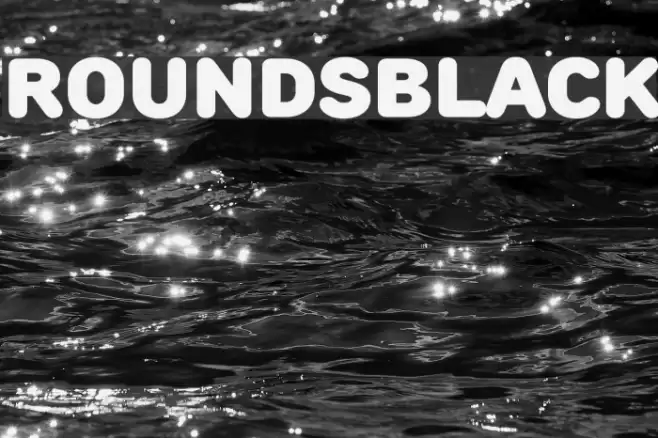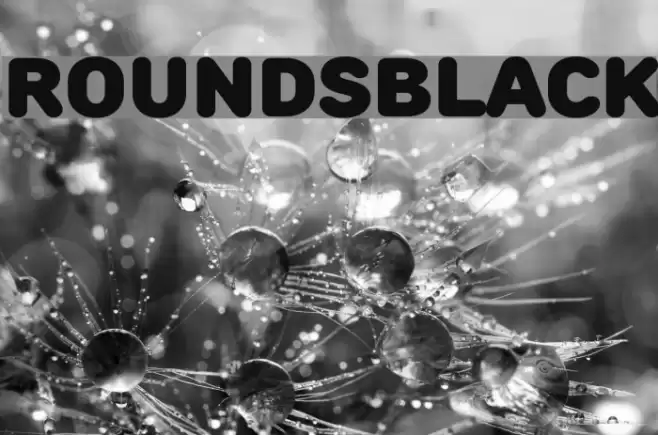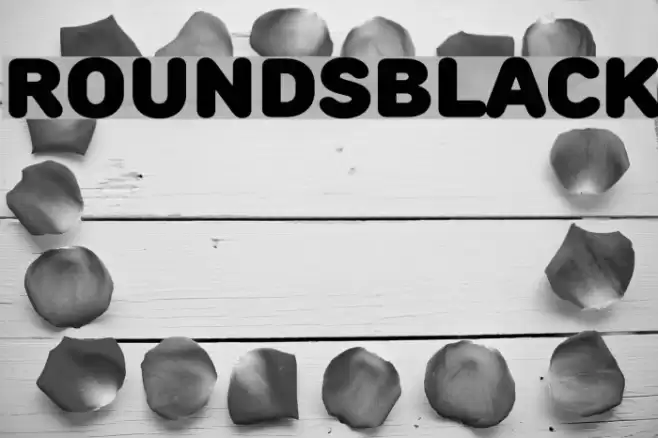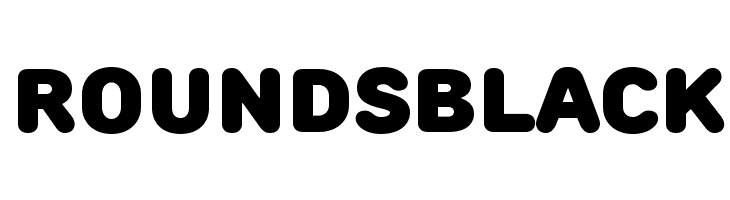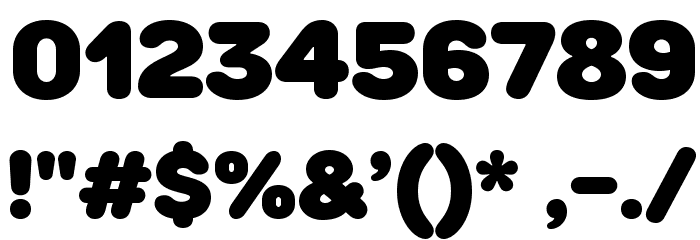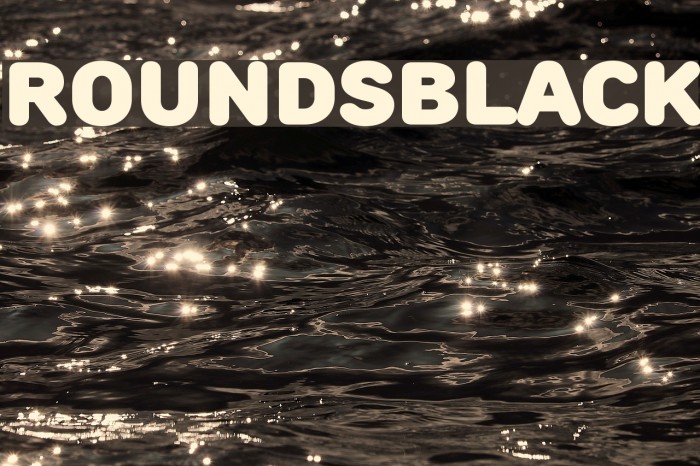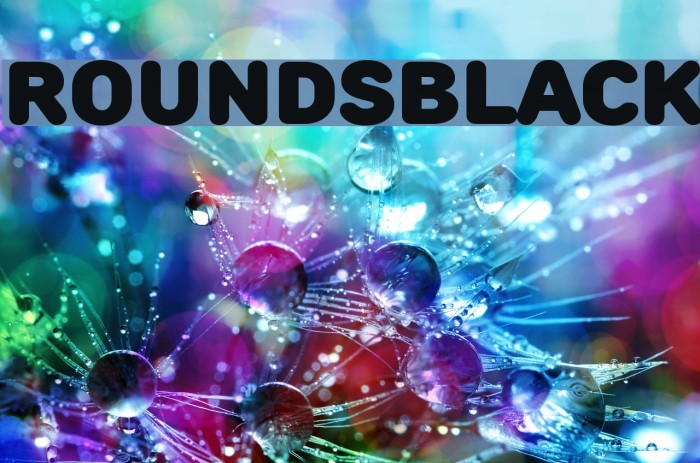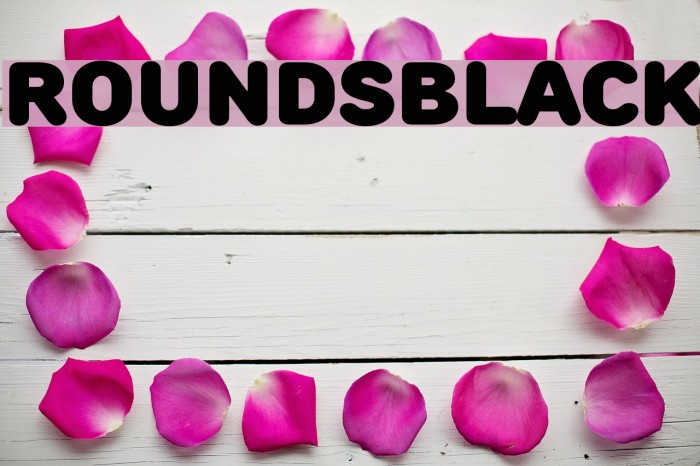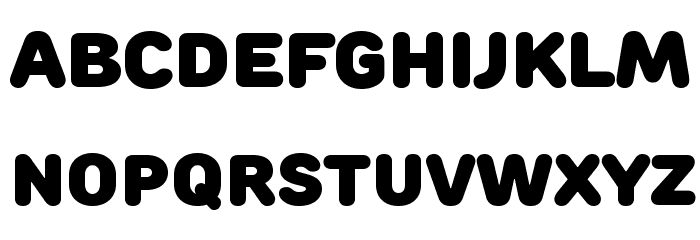
RoundsBlack Font
RoundsBlack Description
This font features a bold and rounded style, characterized by its thick, uniform strokes and smooth curves. The letters are designed with a modern aesthetic, offering a friendly and approachable feel. The rounded edges soften the overall appearance, making it suitable for a variety of applications where a welcoming and informal tone is desired. The numerals and special characters maintain the same rounded and bold characteristics, ensuring consistency across all glyphs. This font is versatile, providing a strong visual impact while remaining legible.
A bold, rounded font with smooth curves and a modern, friendly style from Uncategorized fonts.
- Proposed Projects: Ideal for branding, signage, children's books, and any project requiring a playful and approachable look.
- Use Case: Headlines, Logos, Signage